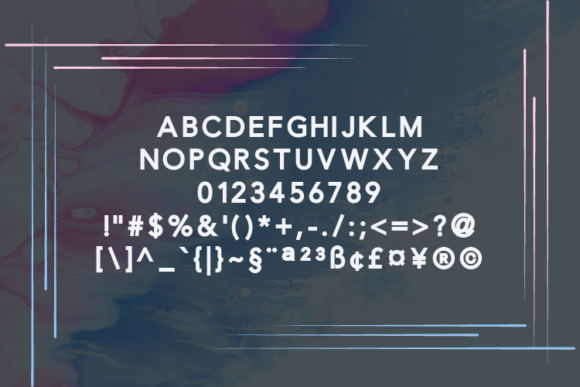
The Gothic Black Font: A Modern Elegance for Your Designs
Have you ever been in the middle of a design project, and suddenly, you’re stuck on finding the perfect font? I recall a recent experience where I was working on a client’s branding project, and I just couldn’t find a font that screamed elegance and modernity. That’s when I stumbled upon the Gothic Black font, and it completely transformed my design. In this article, we’ll dive into the world of Gothic Black, exploring its features, uses, and some helpful tips on how to make the most of it.
A Personal Review: What I Love About Gothic Black
Gothic Black is a modern and elegant sans serif font that has quickly become one of my go-to choices. Here’s what I love about it:
- ✨ Modern and sleek design: Gothic Black boasts a clean and contemporary look that’s perfect for headings and body text.
- ✅ Versatility: This font pairs well with script and handwritten fonts, making it a great addition to any design project.
- 💡 Legibility: Gothic Black is clear and easy to read, even at smaller font sizes.
While Gothic Black is an excellent font, there are a few minor quirks to be aware of:
- 🤔 Limited character set: As with any font, there might be limitations to the character set, so be sure to check for special characters or glyphs.
- ⚠️ Overuse: As with any bold font, be mindful of overusing Gothic Black, as it can become overwhelming.
The Designer Inspiration Behind Gothic Black
While the origins of Gothic Black might be shrouded in mystery, it’s clear that the font was designed with modern elegance in mind. Imagine a designer, fueled by late-night coffee and a passion for typography, carefully crafting each line and curve to create a font that’s both bold and refined.
| Font Name | Gothic Black Font |
| Author | Nan Design |
| What is Gothic Black font? | Gothic Black is a modern and elegant sans serif font suitable for a wide range of design projects. |
| Is Gothic Black suitable for body text? | Yes, Gothic Black is clear and easy to read, making it suitable for both headings and smaller body text. |